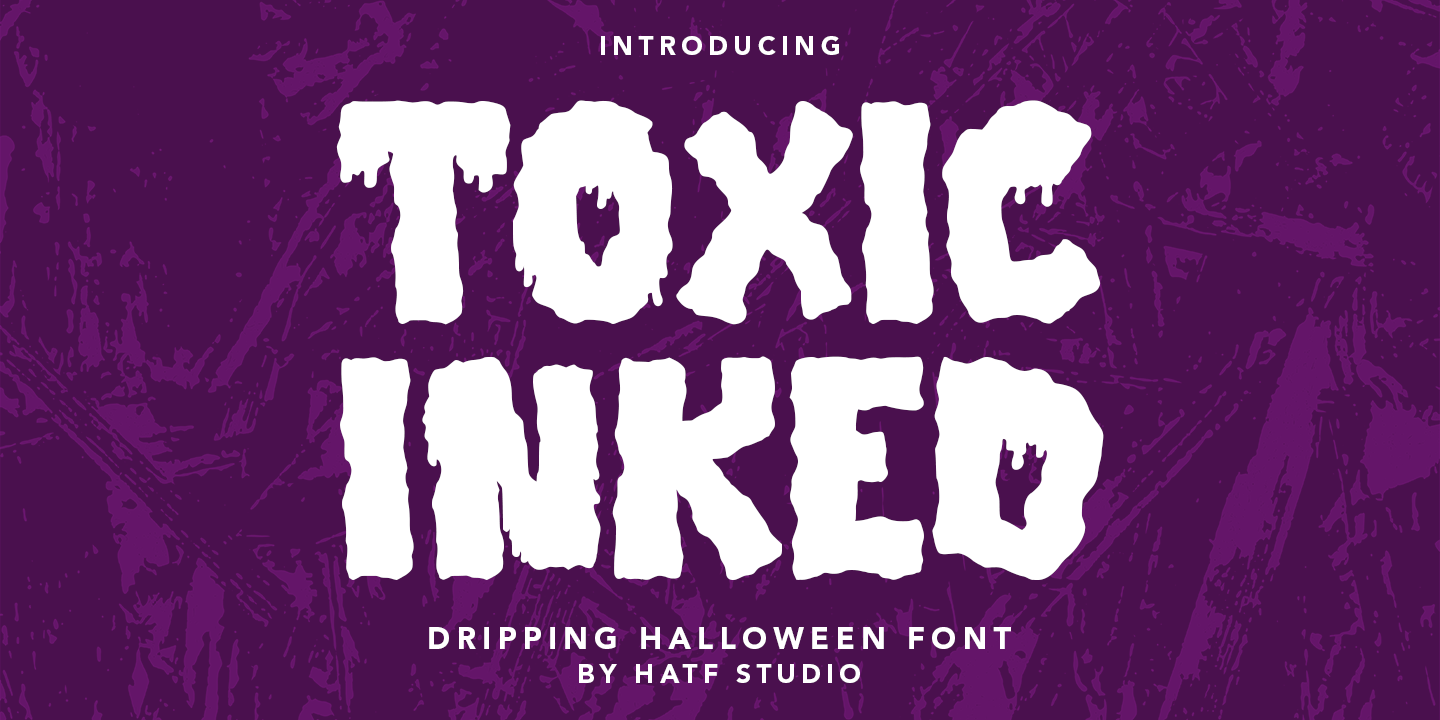
The Toxic Inked Font is an excellent choice for designs that demand a gritty, raw, and unapologetically edgy aesthetic, perfect for capturing the rebellious spirit of street art and counter-culture. Imagine it screaming from the posters of underground music gigs, adding a bold and authentic feel to urban streetwear designs, or bringing a distinctive, unpolished vibe to tattoo parlor branding. It's also perfectly suited for captivating album covers for punk or metal bands, intense video game titles, and any project where you want to convey a sense of raw energy, defiant individuality, and immediate visual impact. With its distinctive, often distressed, splattered, or brush-like forms, the Toxic Inked Font is ideal for projects that aim for maximum attitude and a memorable impression.
What makes the Toxic Inked Font truly exciting is its ability to instantly project a sense of raw energy and direct, unfiltered communication. It feels genuinely hand-drawn with a rough tool, instantly giving your designs an intimate and exclusive quality. This font often features irregular edges, aggressive strokes, or intentional imperfections that mimic ink bleeding or rough brushwork, adding character and depth, and setting it apart from pristine digital typefaces. It's perfect for establishing a brand identity that feels bold, subversive, and unapologetically unique, ensuring your visual communication is not just seen, but truly felt. The Toxic Inked Font Free Download offers a fantastic opportunity to infuse your projects with this distinctive character.
The Toxic Inked Font family is typically designed to offer versatility while maintaining its signature raw and edgy style. While specific family members can vary, you can often expect to find:
• Toxic Inked Regular: The primary expressive style, with its characteristic rough, inked appearance.
• Toxic Inked Bold: For added emphasis, with even thicker, more dominant strokes.
• Toxic Inked Slanted (or Italic): For a more dynamic, forward-leaning appearance.
• Toxic Inked Textured (or Dry): If it includes a version with a more pronounced dry brush or ink bleed texture for added authenticity.
• Toxic Inked Alternates: Often includes stylistic alternates or ligatures to enhance the natural handwritten look and provide creative variations.
These variations provide flexibility for different design applications, allowing you to create engaging visual hierarchies and maintain a consistent, powerful aesthetic across all your projects.